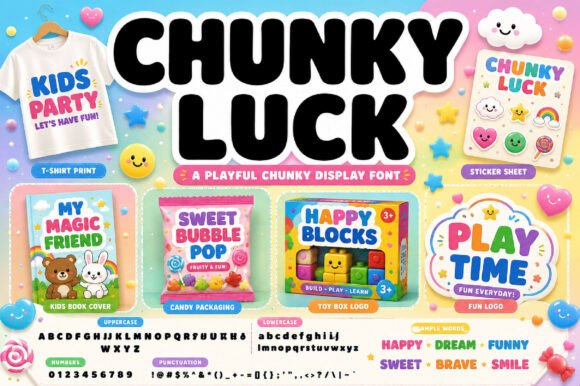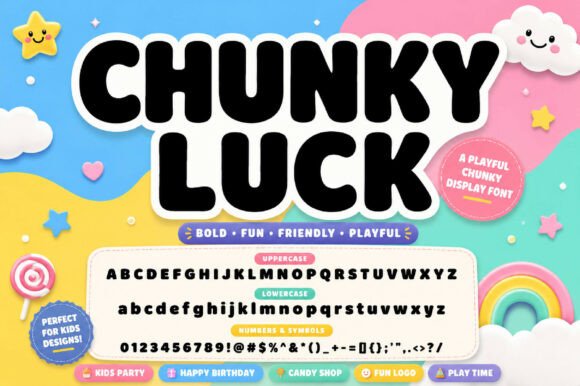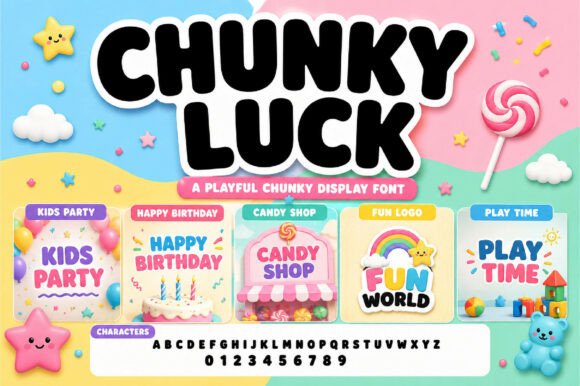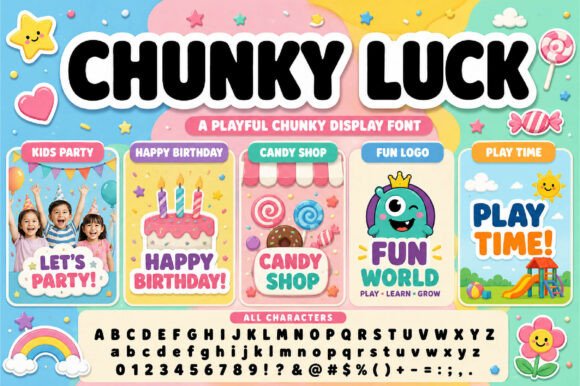
Introducing Chunky Luck Font: The Bold and Retro-Inspired Display Font
Immerse yourself in the enchanting realm of the bold and retro-inspired display font, Chunky Luck. This font embodies a delightful fusion of vintage flair and modern playfulness through its hefty, rounded letterforms. Every stroke from Chunky Luck paints pictures of cheerful spirits and energetic storytelling, making it a quintessential choice for arresting attention on logos, posters, branding elements, and more.
The Perfect Blend of Vintage and Modern
Chunky Luck’s unique design combines the nostalgia of vintage typography with the playfulness of modern fonts. Its bold, rounded letterforms evoke a sense of fun and energy, making it perfect for designs that require a touch of whimsy. Whether you’re creating a logo, poster, or social media graphic, Chunky Luck is sure to add a dash of personality to your design.
Readability and Versatility
As robust and rounded as it may seem, Chunky Luck makes no compromise on the aspect of readability. It stands out, irrespective of whether it’s print or digital, contributing a solid chunk of appeal and quick recognition. This font is designed to be versatile, making it suitable for a wide range of applications, from headlines and children’s designs to social media graphics and packaging design.
Design Applications
Chunky Luck is a font that can be used in various design applications, including:
- Logos and Branding: Create a lasting impression with Chunky Luck’s bold and playful letterforms. Perfect for logos, business cards, and branding elements.
- Posters and Flyers: Grab attention with Chunky Luck’s energetic and eye-catching design. Ideal for posters, flyers, and brochures.
- Children’s Designs: Add a touch of fun and playfulness to children’s designs, such as book covers, stickers, and activity sheets.
- Social Media Graphics: Make your social media graphics stand out with Chunky Luck’s bold and retro-inspired design. Perfect for Facebook, Instagram, Twitter, and more.
- Packaging Design: Add a dash of personality to your packaging design with Chunky Luck’s unique and playful letterforms.
Why Choose Chunky Luck?
There are many reasons why Chunky Luck is a great choice for designers and crafters:
- Unique Design: Chunky Luck’s bold and retro-inspired design sets it apart from other fonts.
- Readability: Despite its bold design, Chunky Luck remains highly readable, making it perfect for a wide range of applications.
- Versatility: Chunky Luck can be used in various design applications, from logos and posters to social media graphics and packaging design.
In conclusion, Chunky Luck is a bold and retro-inspired display font that is perfect for designers and crafters looking to add a touch of personality to their designs. Its unique blend of vintage flair and modern playfulness makes it a versatile font that can be used in a wide range of applications. With its high readability and ease of use, Chunky Luck is a great choice for anyone looking to create eye-catching and engaging designs.